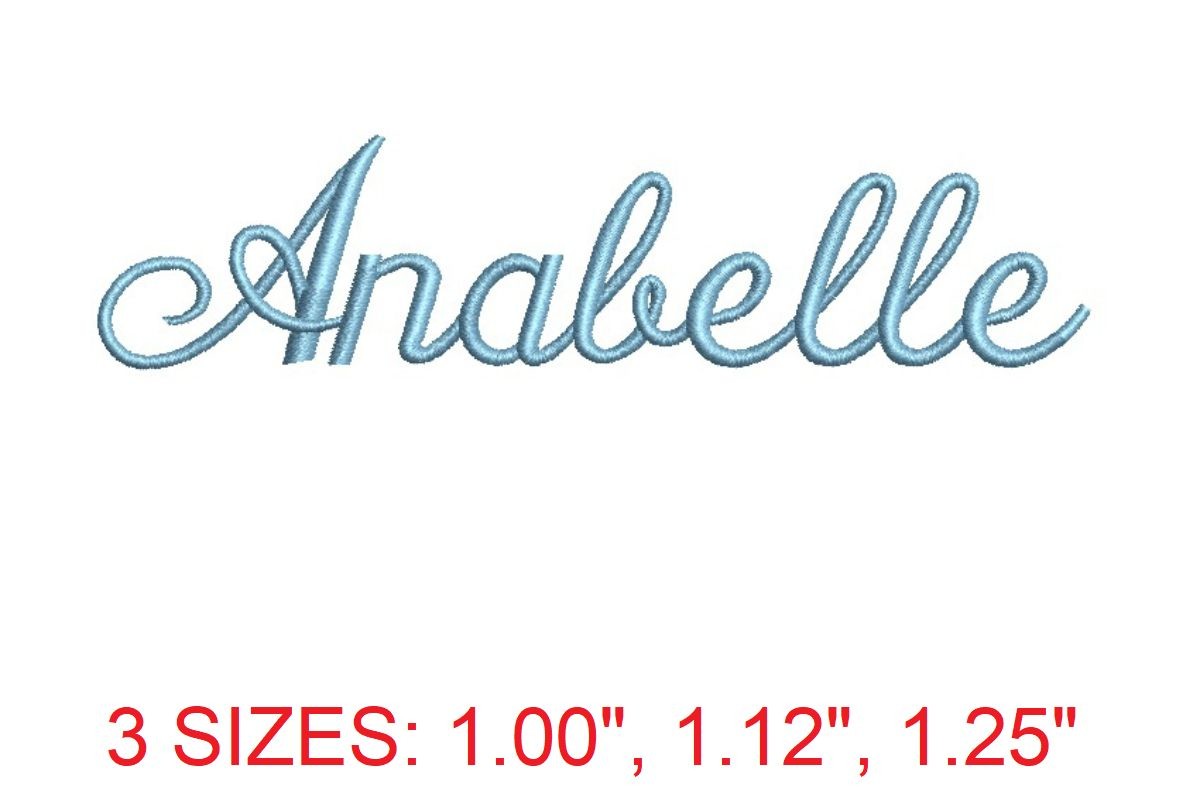
Annabelle Embroidery Font
Elevate your embroidery projects with the timeless charm of the “Annabelle” font! This captivating embroidery font, compatible with the popular PES file format, ensures a seamless experience on Brother, Babylock, and a wide range of embroidery machines. Embrace the beauty of “Annabelle’s” intricate lettering, perfect for monograms, decorative accents, and personalized designs that exude elegance. With meticulous stitch work and flawless digitization, each creation will impress with its refined craftsmanship. Let “Annabelle” be your go-to font for adding a touch of sophistication to your embroidery masterpieces. Unleash your creativity today and bring the allure of “Annabelle” to life! This machine embroidery design comes with multiple embroidery file formats and can be used with multiple embroidery machines. The sizes and stitches information shown below are for “A” and “a” in each size. This is provided as a summary of what is available in this download file. For the full dimension details of the 156 letters and other punctuation in this set, click on the More Sewing Info (PDF) button on this page.